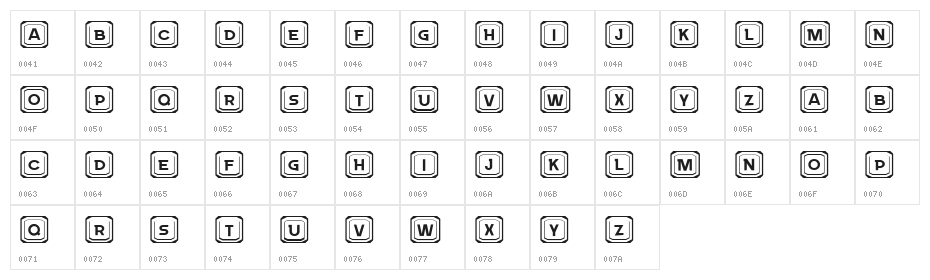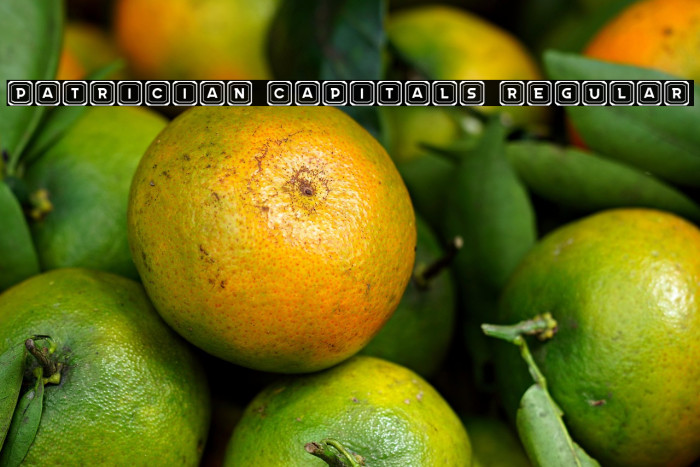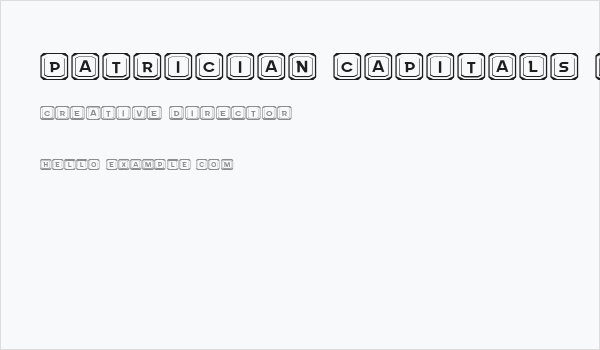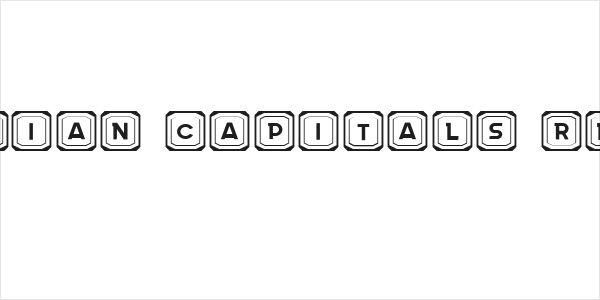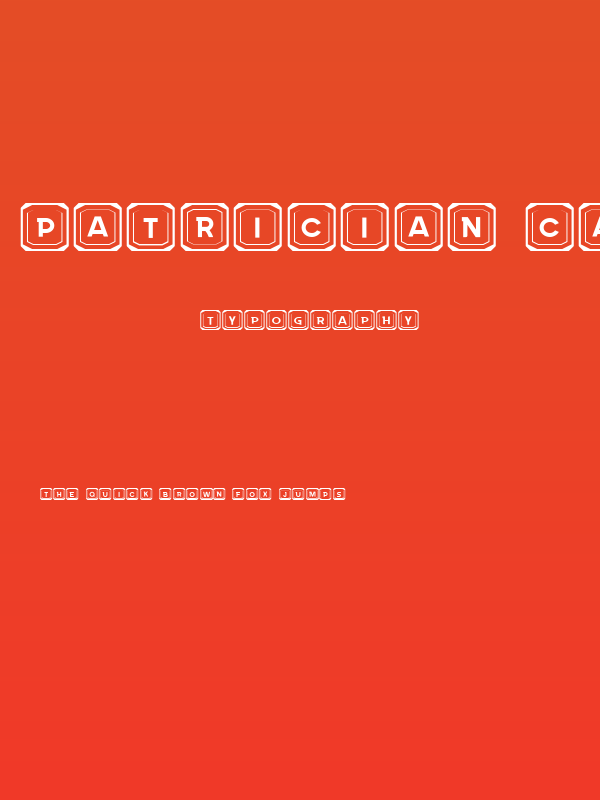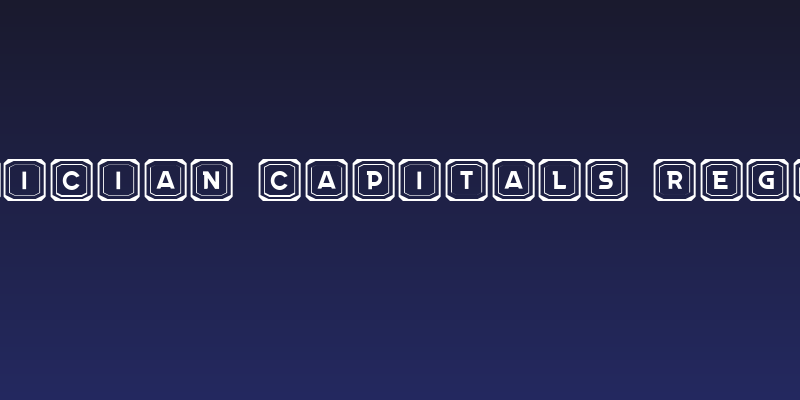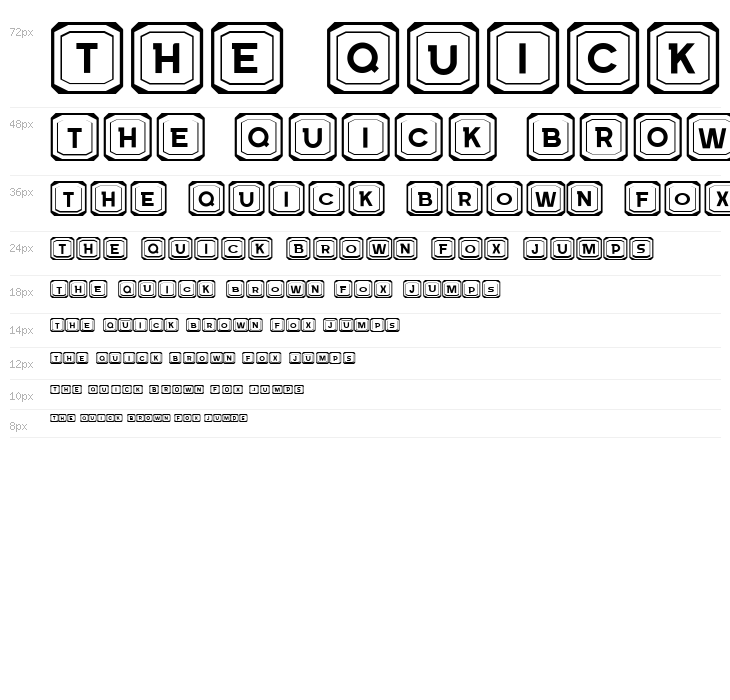
Patrician Capitals Regular Font
Patrician Capitals Regular Description
This font features a bold, geometric design with each letter encapsulated within a square frame. The letters are uppercase and exhibit a strong, structured form, reminiscent of architectural elements. The thick borders around each character add a sense of depth and emphasis, making it stand out prominently. The style is clean and modern, with a touch of retro flair due to the outlined squares. This font is ideal for creating impactful headlines or titles where attention is key.
| Proposed Projects | Ideal for posters, logos, and branding materials that require a bold, eye-catching typeface. |